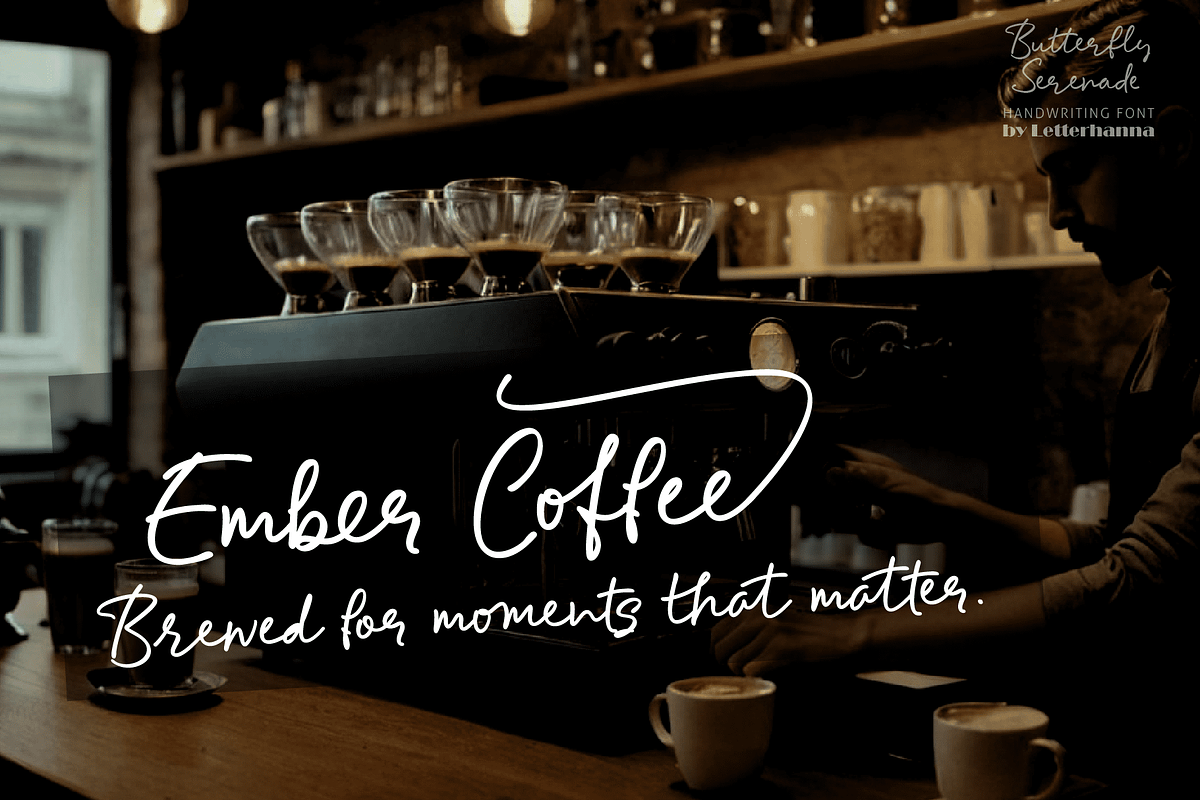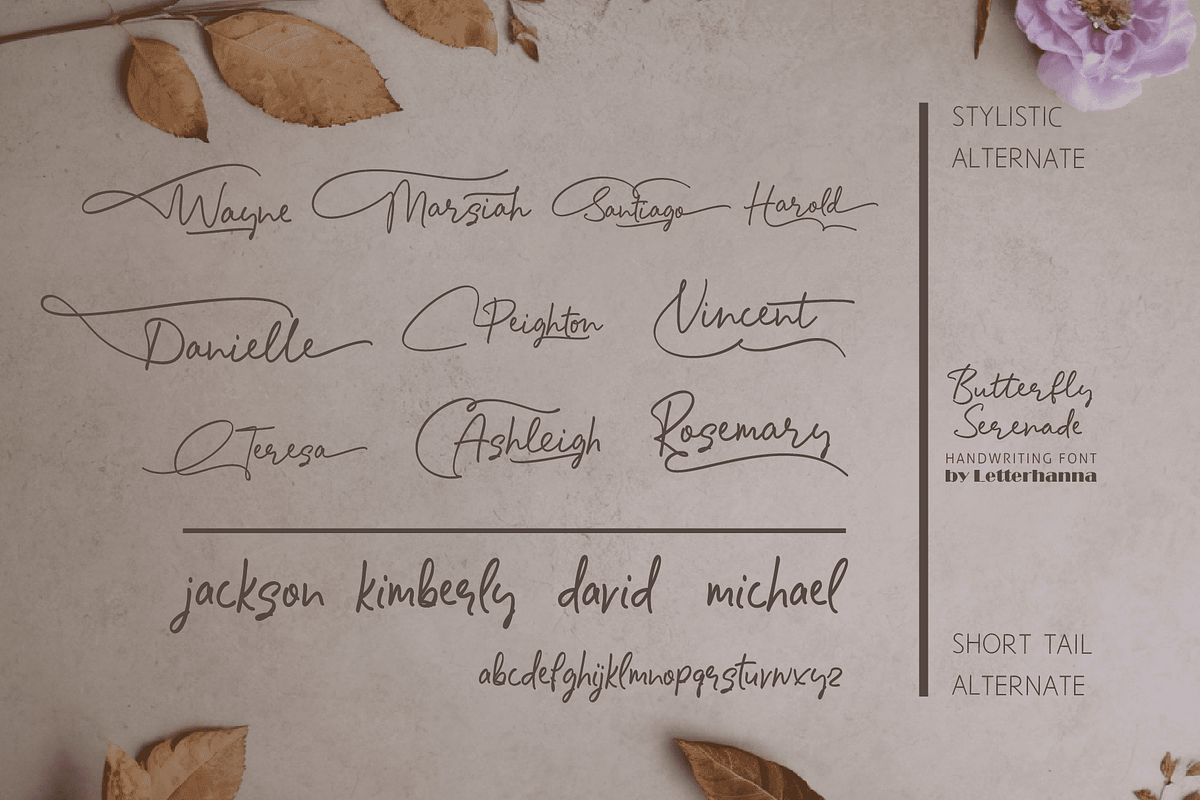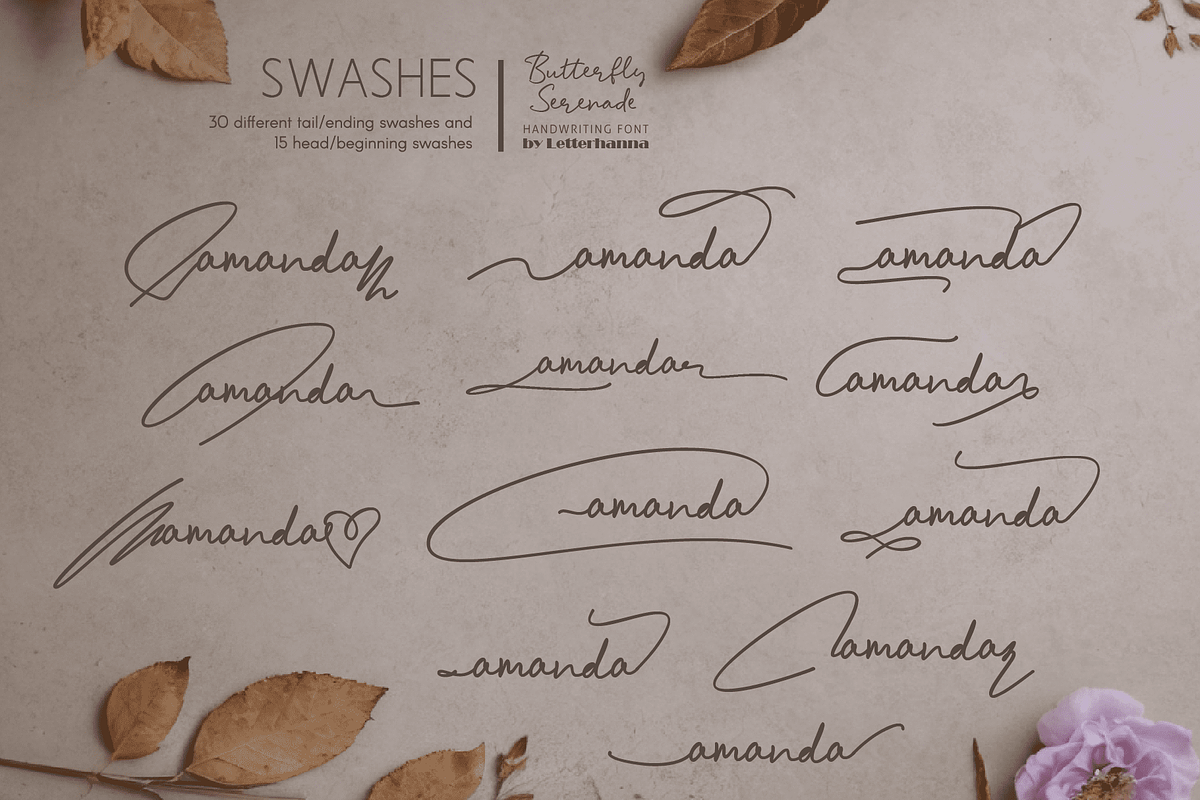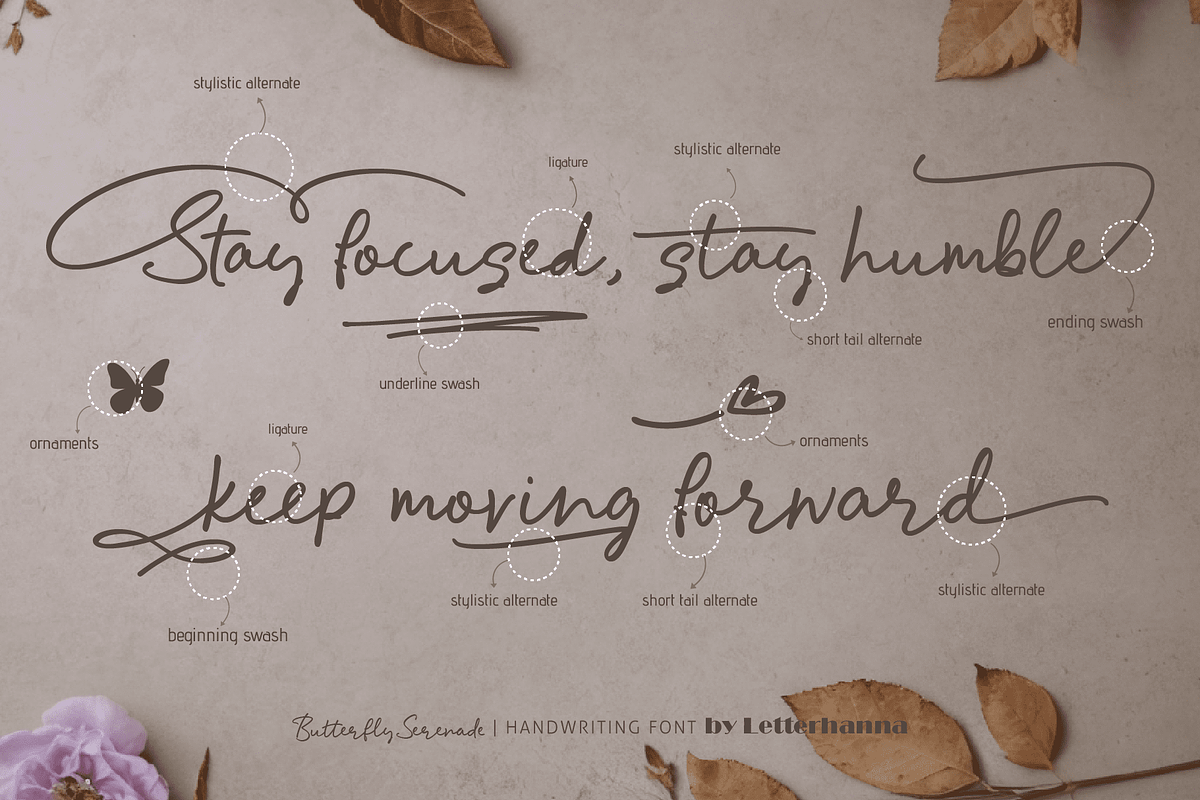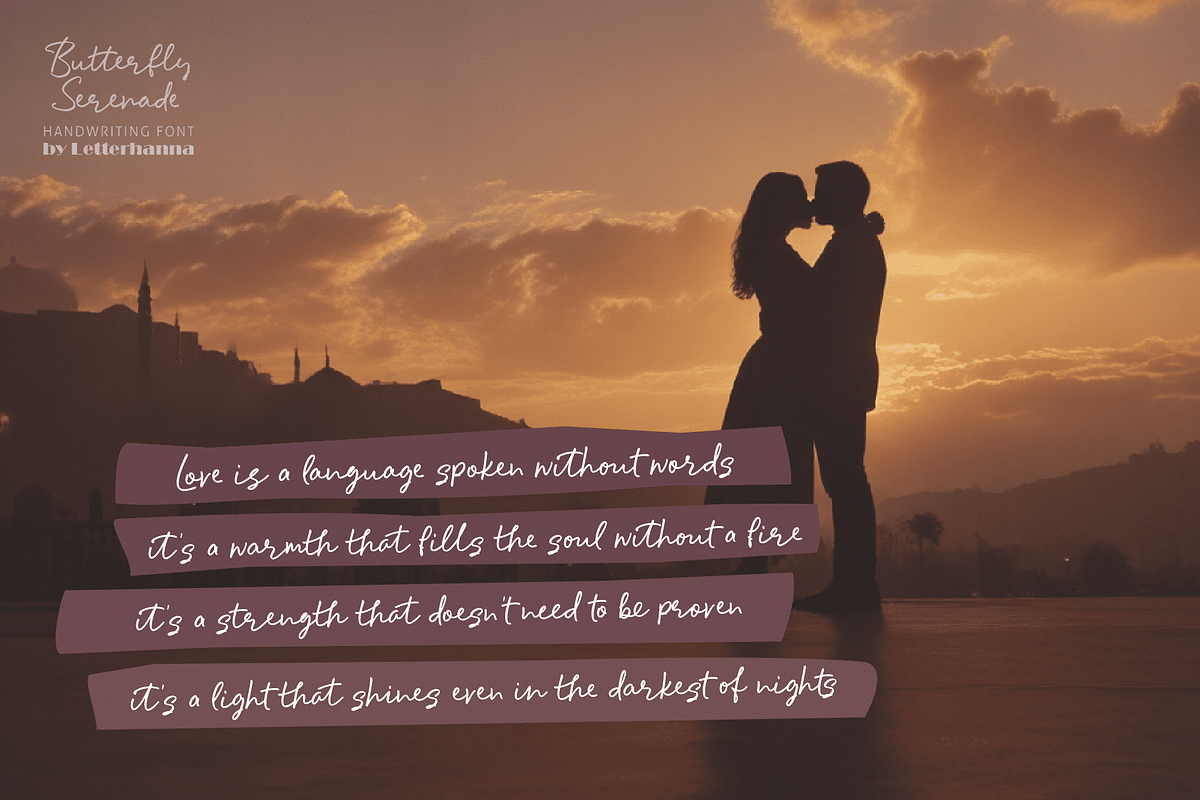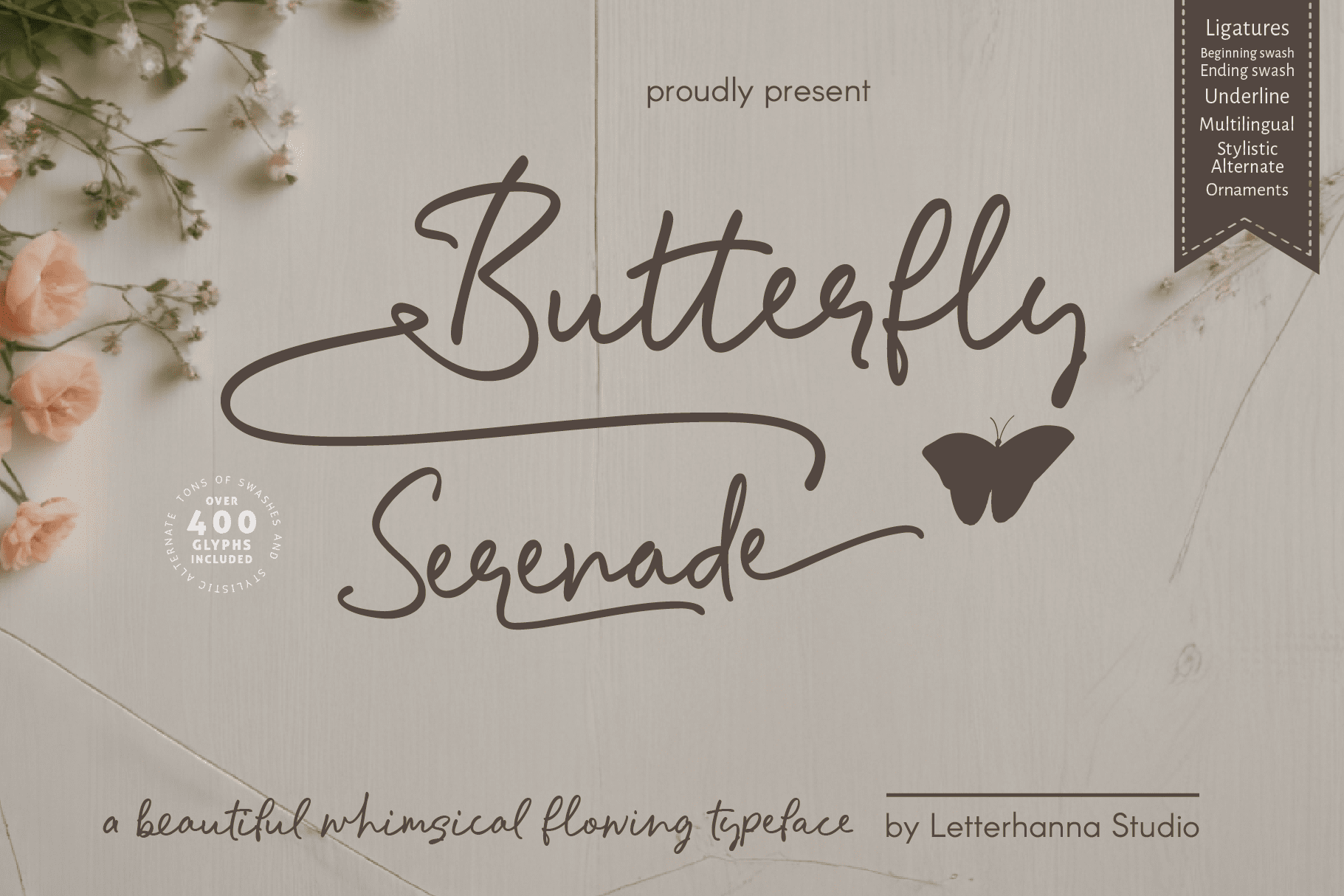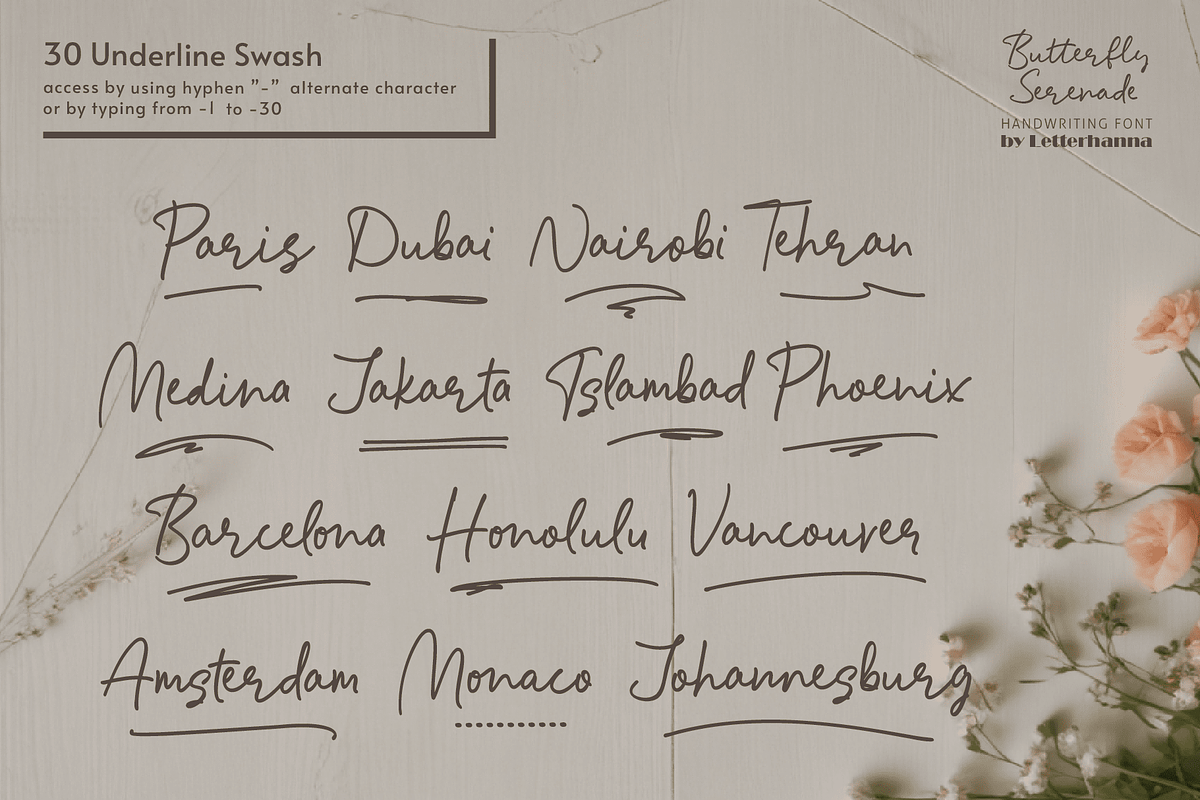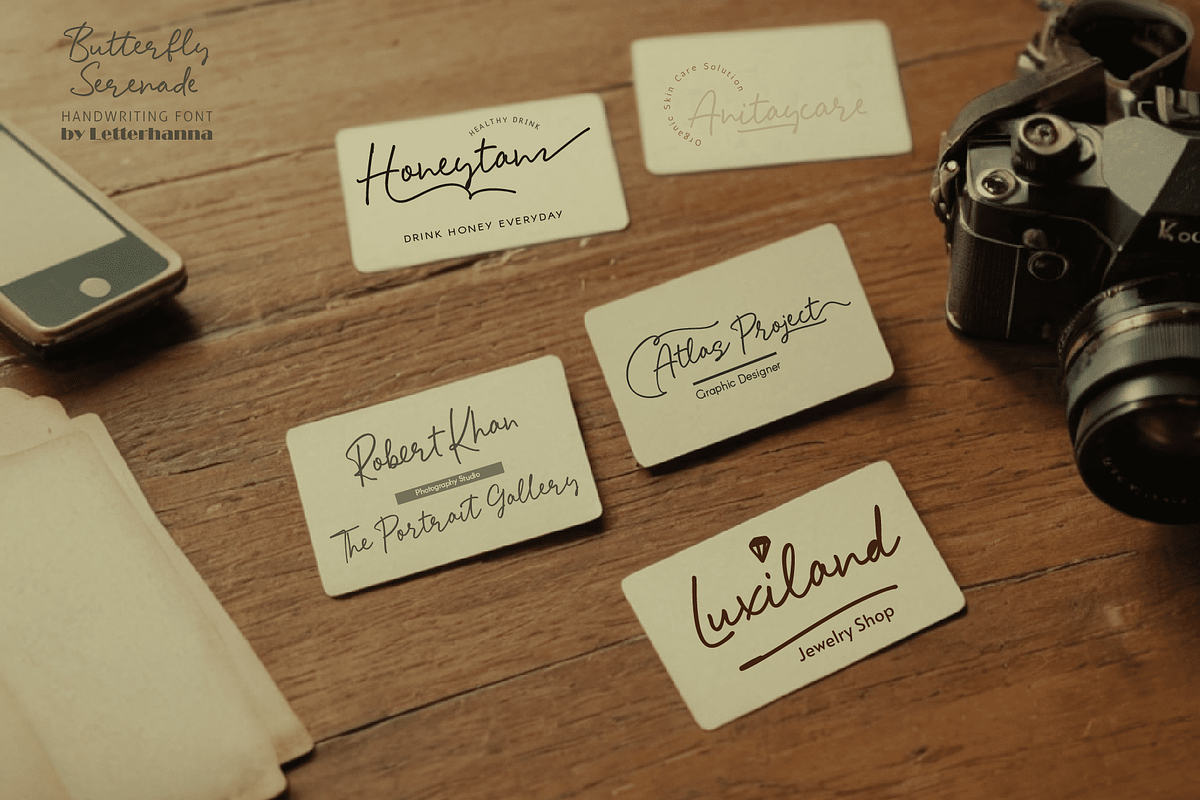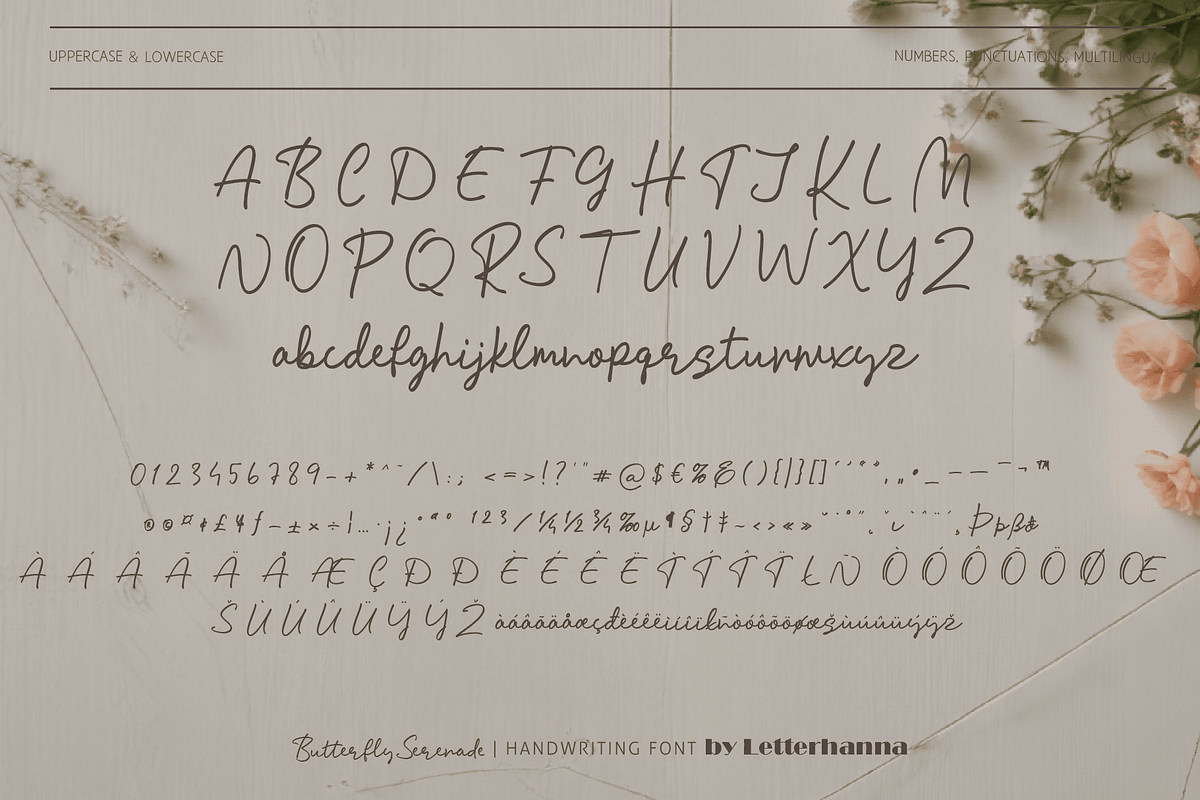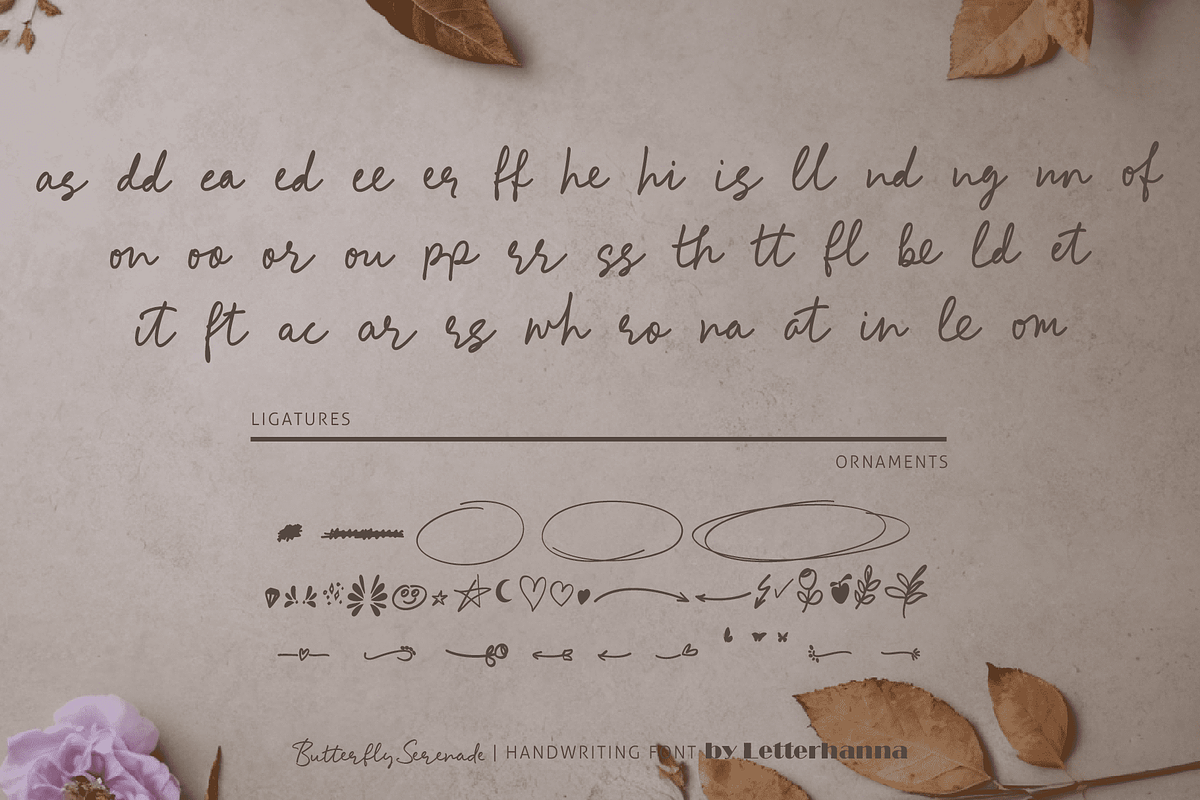
Butterfly Serenade Font
Introducing Butterfly Serenade, a whimsical handwriting script font that dances across the page with effortless charm. Inspired by the graceful flutter of butterfly wings, this font combines delicate loops and playful flourishes to create a light, airy feel that’s perfect for adding an enchanting touch to invitations, greeting cards, or whimsical branding. Each letter is crafted to bring a sense of warmth and creativity, making your designs as delightful and unique as a garden in bloom. Let Butterfly Serenade take your projects to new heights of elegance and imagination!
Easy Access to Glyphs and Swashes
Gain easy access to all alternate glyphs, swashes, ornaments, and underlines by simply using ligatures. You can try them out yourself in the font preview tool on our website, letterhanna.com.
Accessing Swashes and Ornaments
Underline Swashes: Use a hyphen symbol "-" followed by a number between 1 and 30. For example, type "-3", "-22", or "-17" to get various underline swashes.
Head/Beginning Swashes: Use a dollar sign "$" followed by a number between 1 and 9. For example, type "$2" or "$8" to get different head/beginning swashes.
Tail/Ending Swashes: Use a percent sign "%" followed by a number between 1 and 30. For example, type "%3" or "%15" to get various tail/ending swashes.
Ornaments: Use an "at" symbol "@" followed by a number between 1 and 26. For example, type "@4" or "@13" to get different ornaments.
PUA Encoding for Ease of Use, which means you can access all the glyphs and swashes with ease!
Uppercase and lowercase letters Numbers and punctuation marks Multilingual support Ligatures Beginning and ending swashes Underline swashes Ornaments Easy access to swashes using ligatures